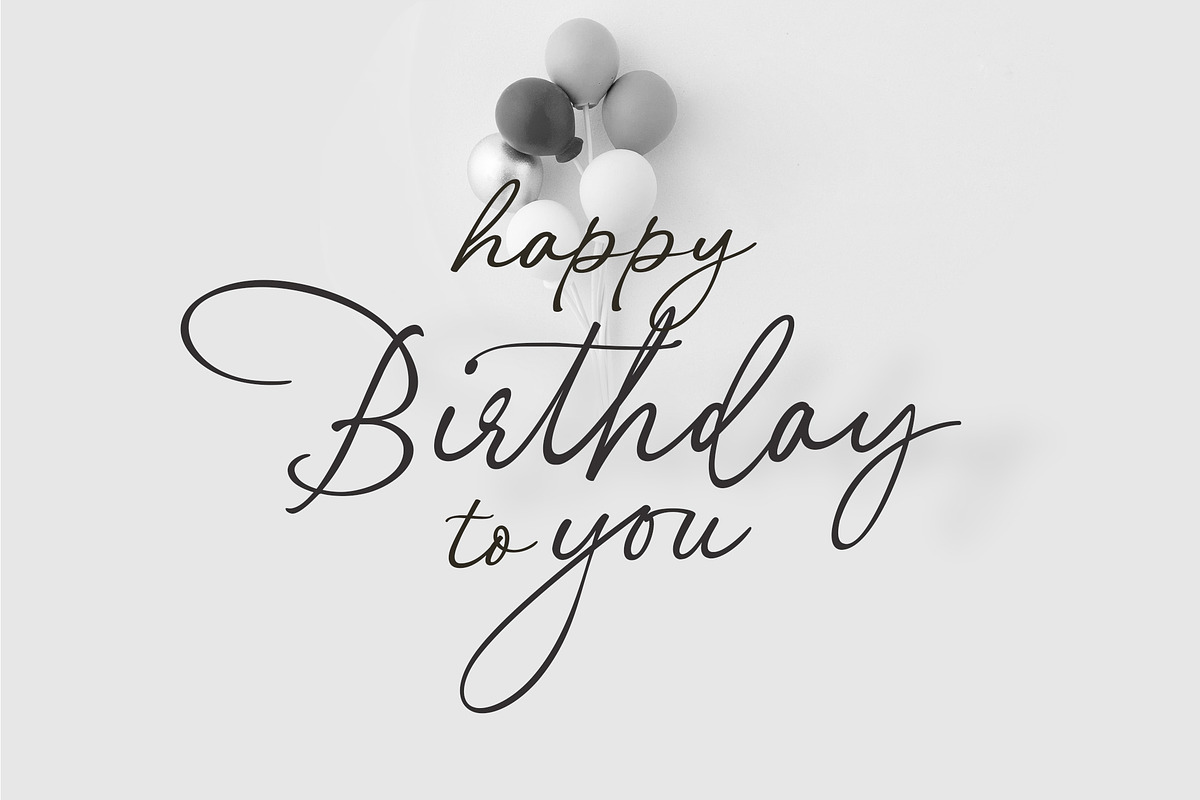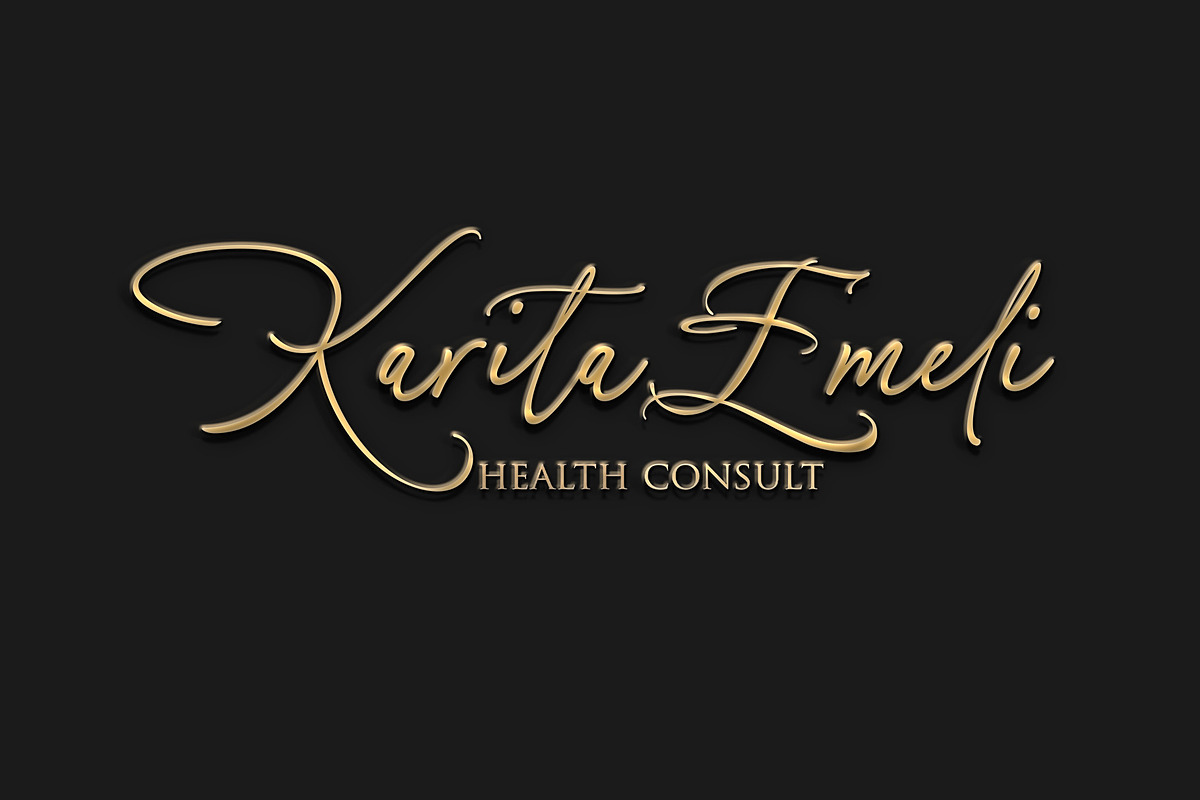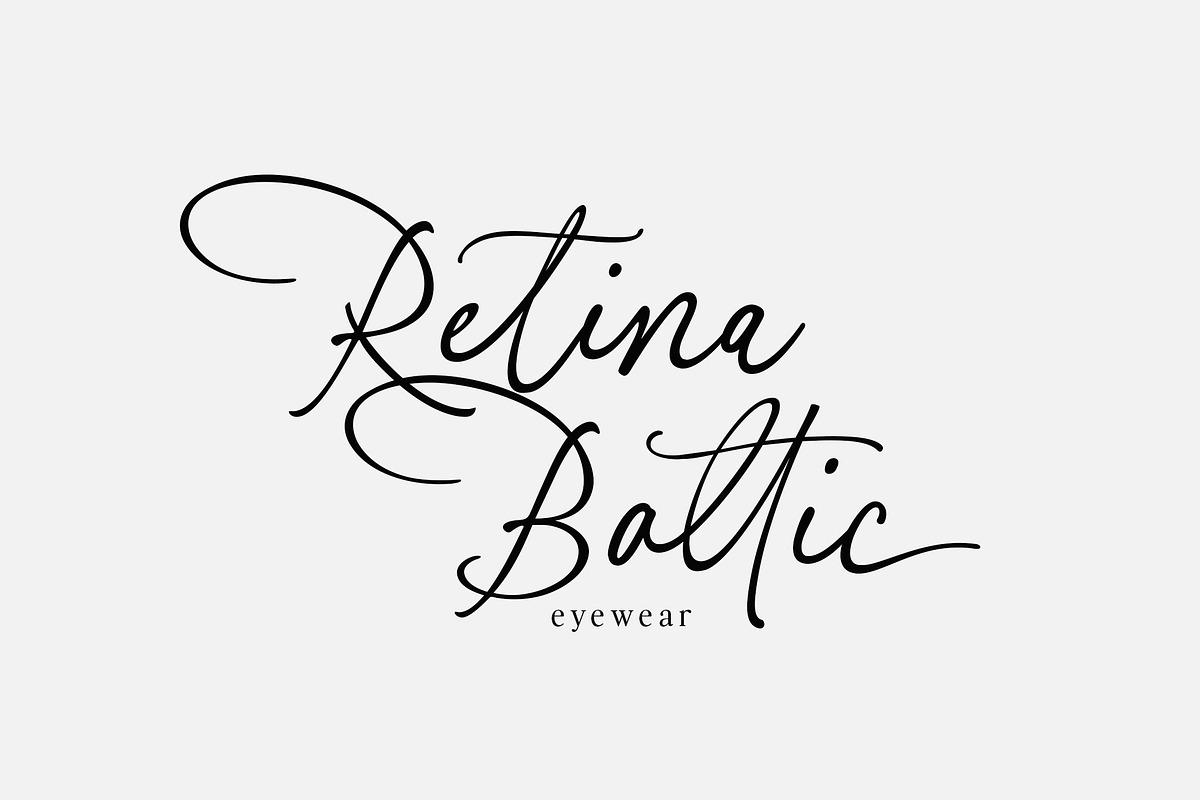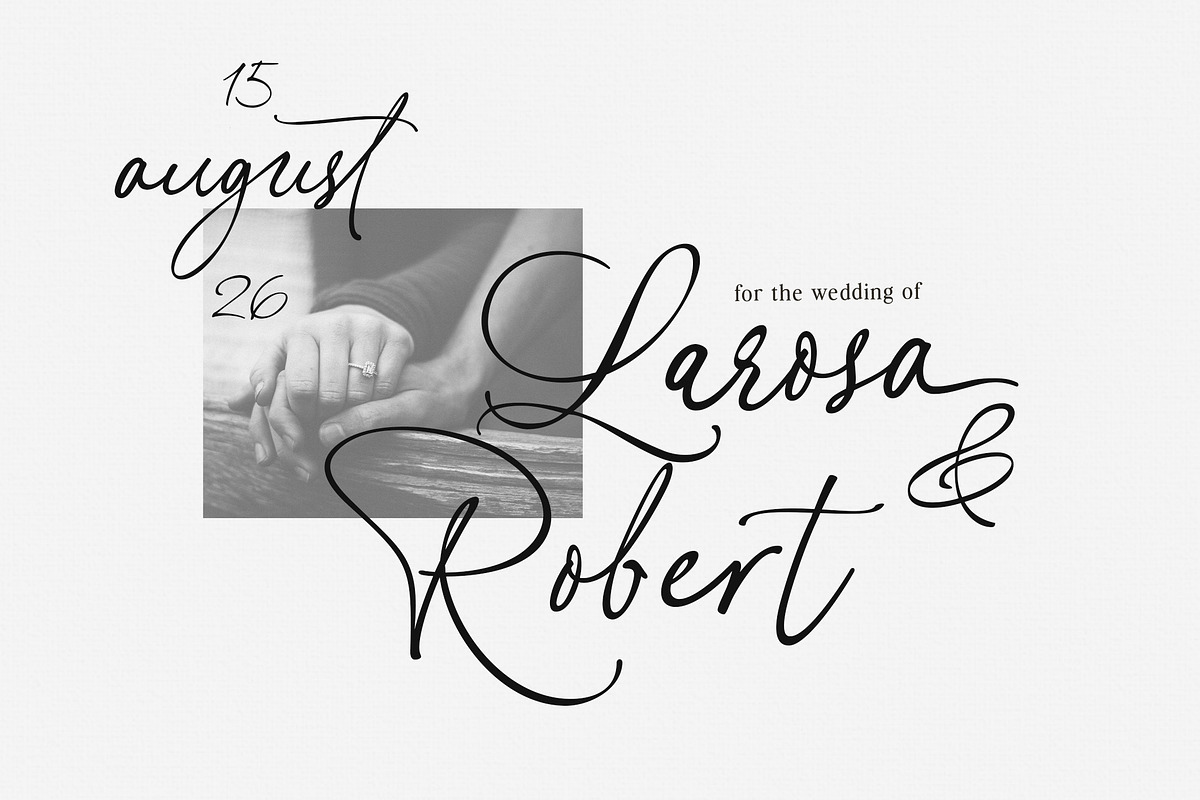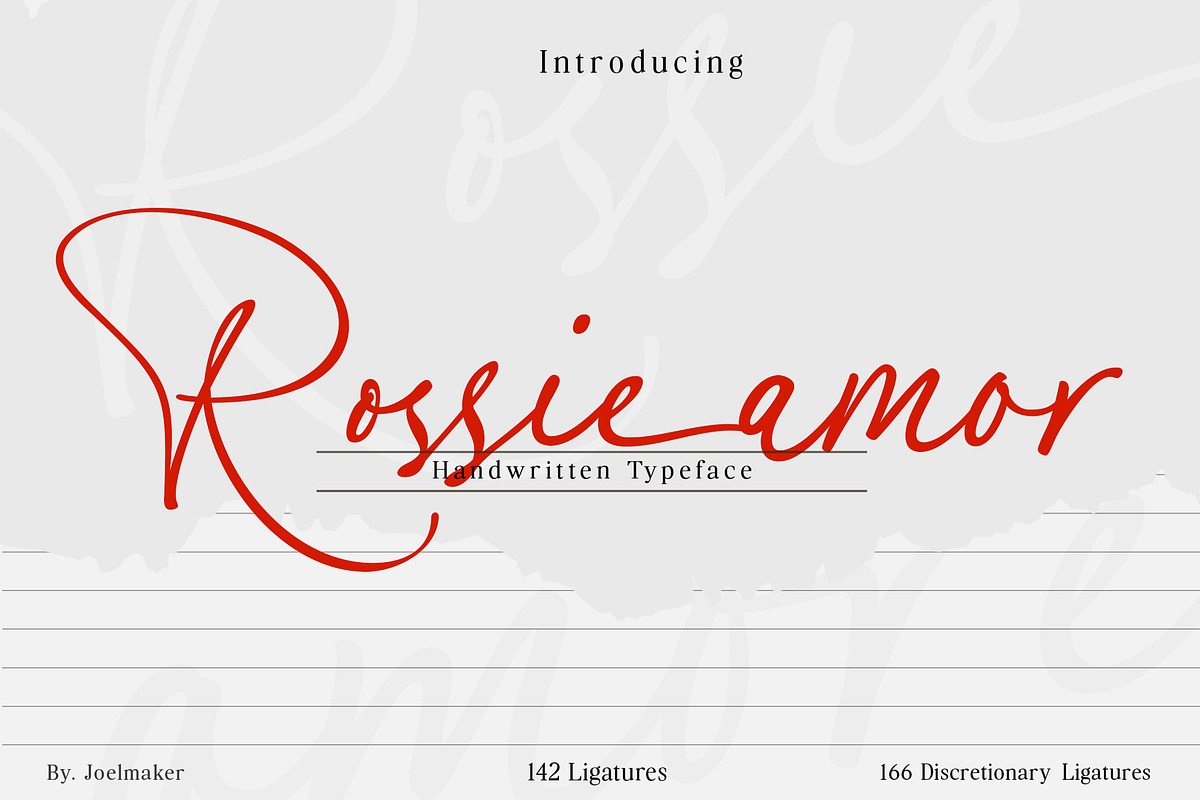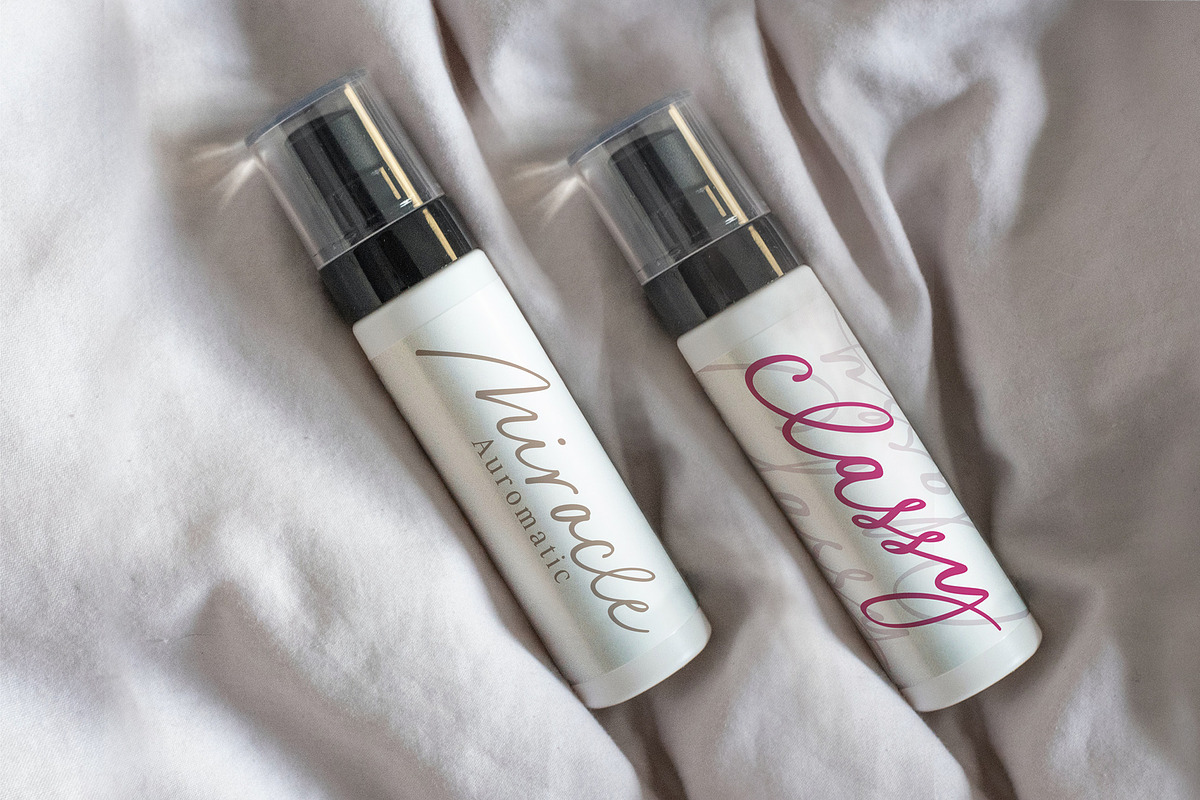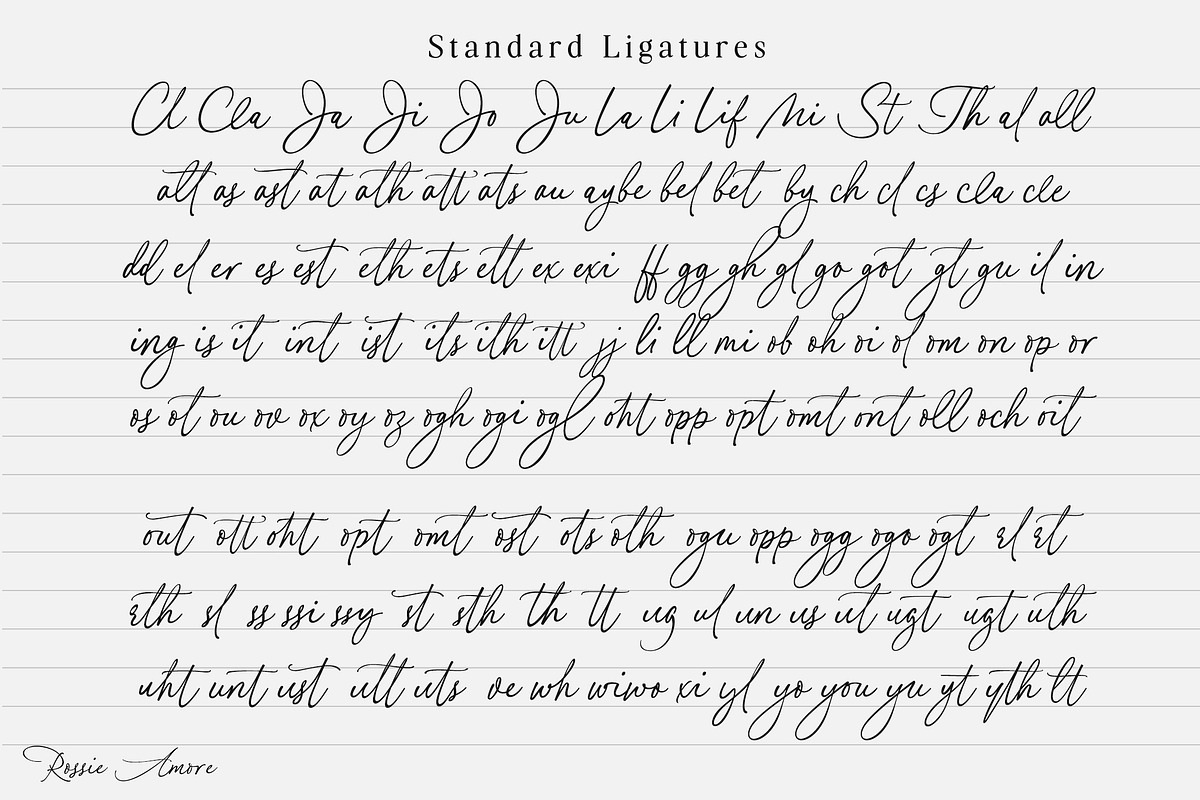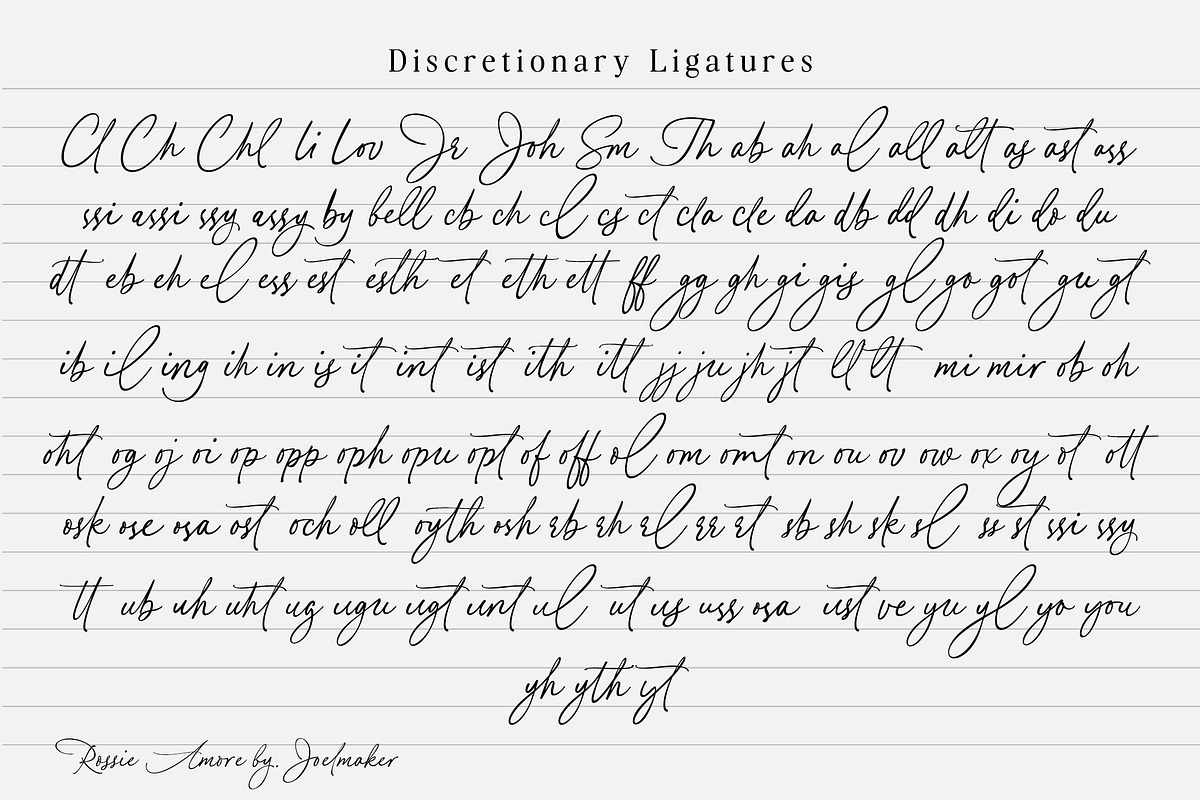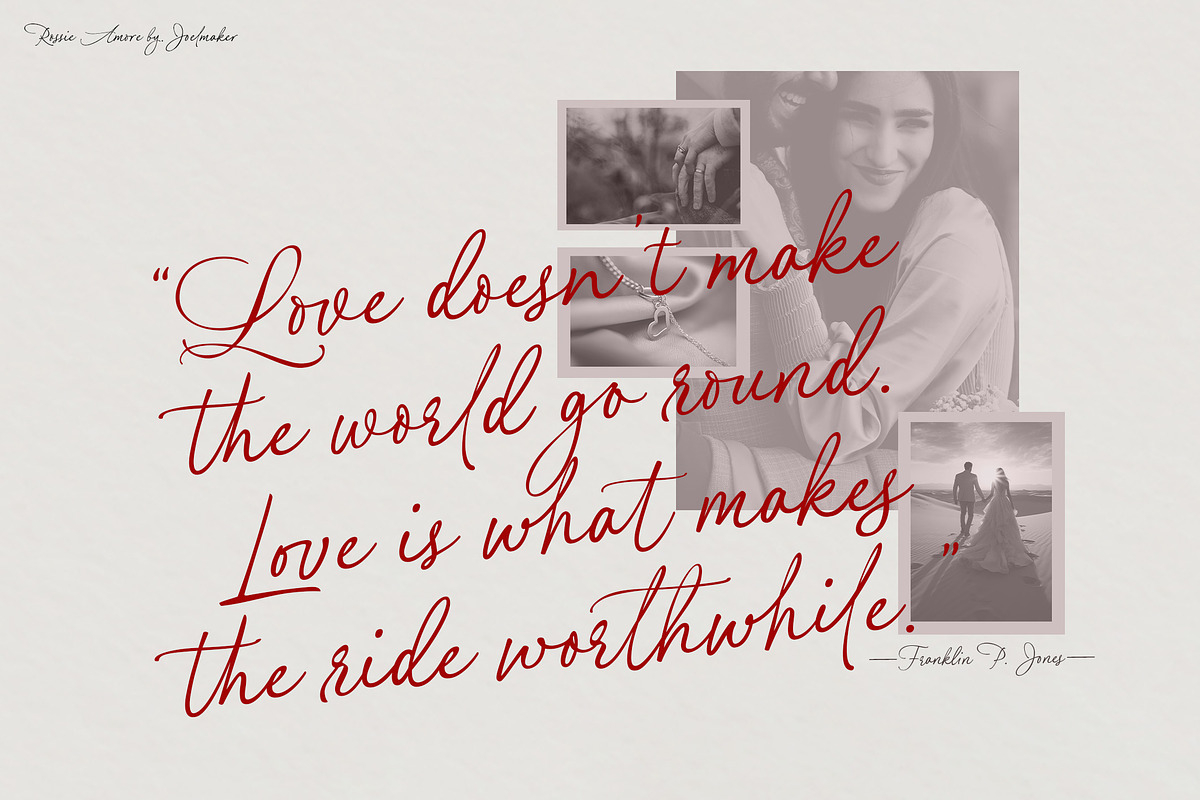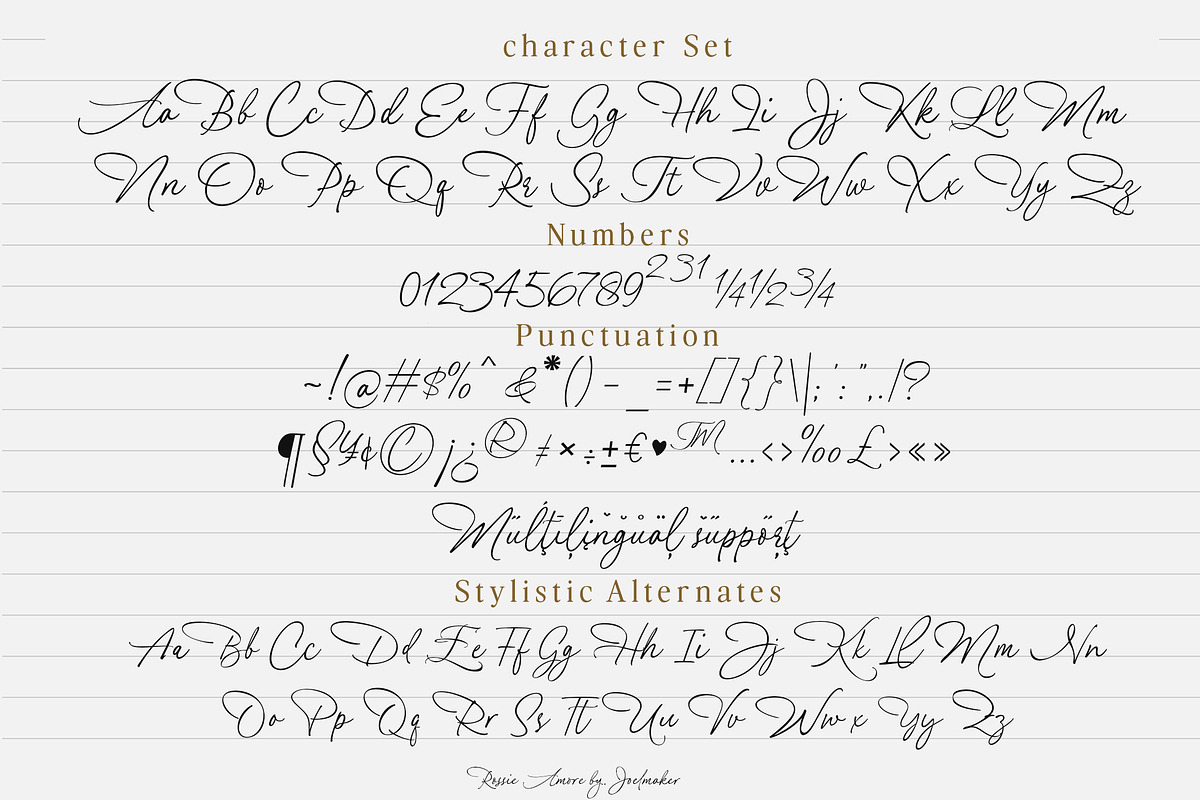
Rossie Amor
Rossie Amor is an elegant handwritten typeface crafted to bring a touch of sophistication and effortless charm to any design. With its smooth flowing strokes, graceful curves, and refined modern-calligraphy style, this font captures the warmth of natural handwriting while maintaining a high level of readability.
Designed with meticulous attention to detail, Retina Baltic features 142 standard ligatures and 166 discretionary ligatures, offering rich stylistic variety and beautifully connected letterforms. Every curve feels intentional, making it perfect for branding, invitations, logos, packaging, quotes, and any project that calls for a luxurious handwritten aesthetic.
Created by Joelmaker, this typeface blends artistic expression with professional versatility—ideal for designers seeking a font that feels both personal and premium.